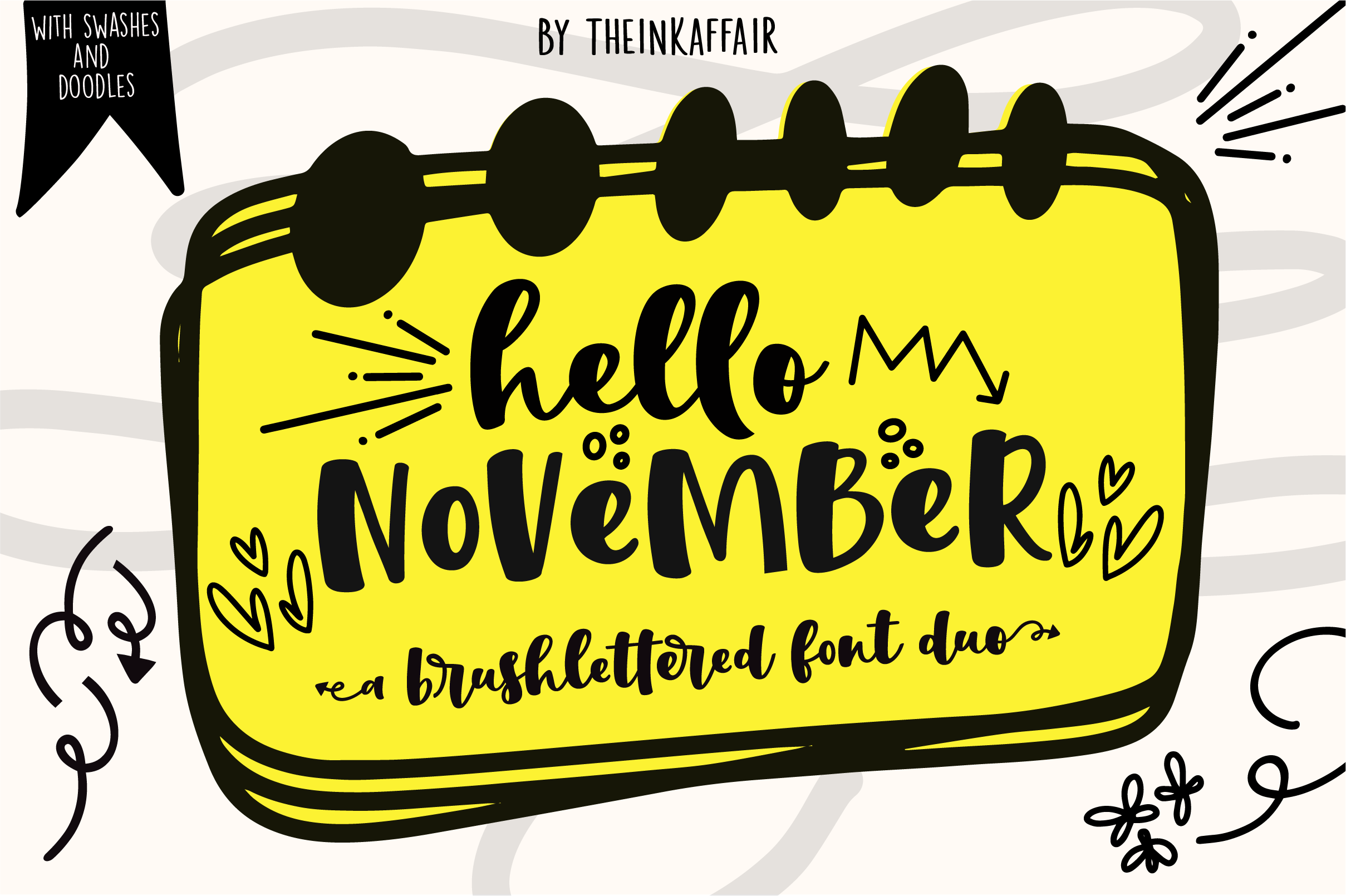
Hello November Font Duo
Introducing Hello November, a brush lettered font duo with a beautifully bold script font and a complimentary sans serif font. Hello November is perfect for all things design and comes with a set of swashes and doodles!
- Hello November - includes uppercase, lowercase letters, numbers and punctuation, ligatures as well as lowercase alternates with an ending swash. Also included are 4 extra beginning swashes and one ending swash which can be accessed using these keys: / | / ( see preview image 9)
- Hello November Sans - Essentially an uppercase font, Hello November Sans includes the same uppercase and lowercase letters with an exception of a, e, i, o, u, t, and s to make the font more fun!
- Doodles - over 20 doodles to help you create beautiful designs!